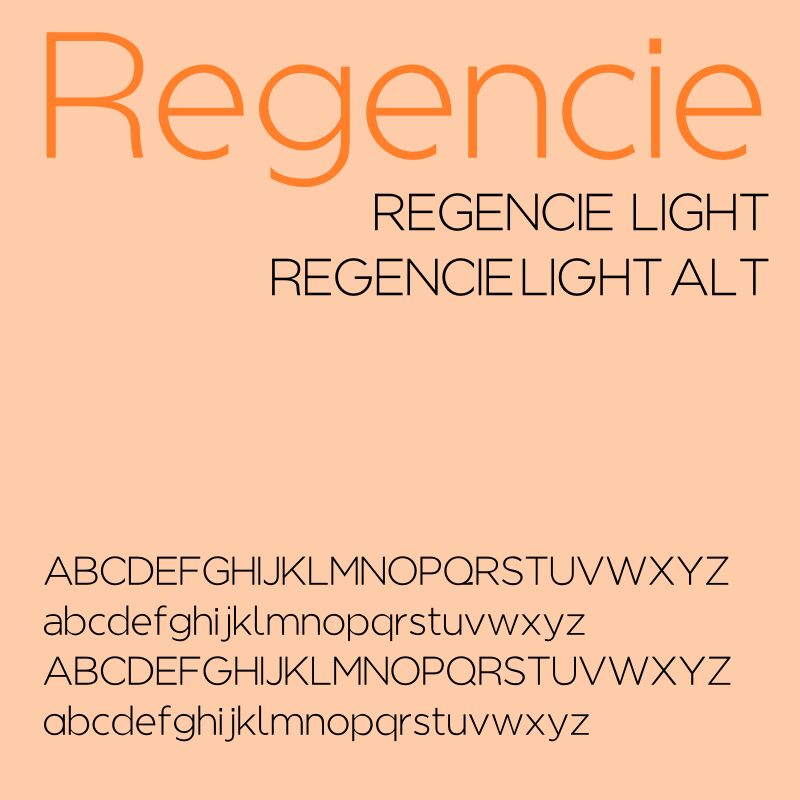
Regencie Light Alt
Regencie Light Alt by Alvaro Thomaz is a free light sans serif with unusually broad, elegantly spare proportions. Fine strokes and open forms keep the letters airy and poised.
A fashion magazine masthead is its clearest role, where the long horizontal reach and restrained drawing feel refined without ornamental detail. The same slim geometry also suits cosmetics packaging, gallery posters, and cultural event programs, particularly for projects with a polished, distinctly contemporary direction. Across these uses, the generous letter widths and fine lines connect luxury-minded branding with clean, clear editorial presentation.